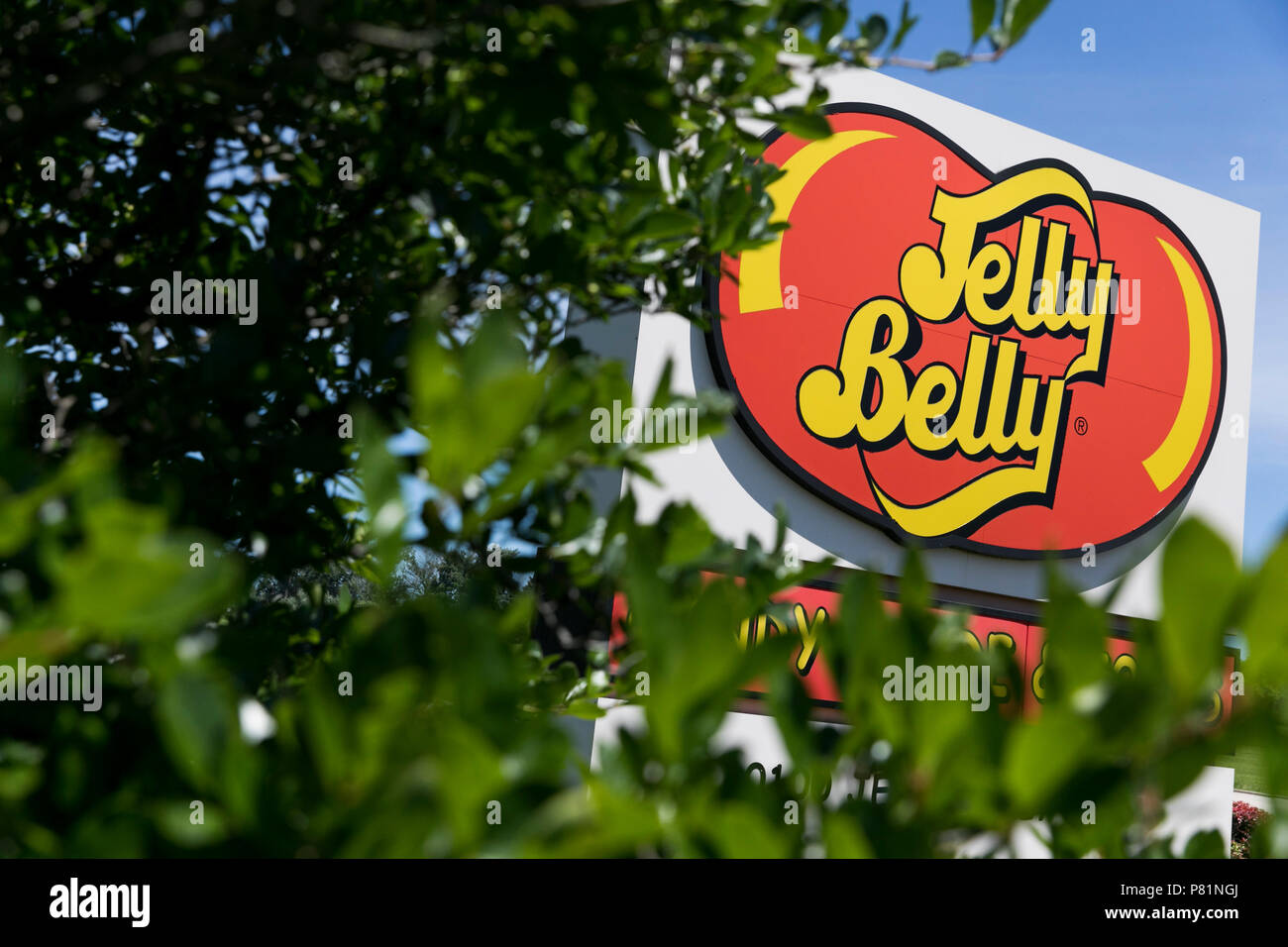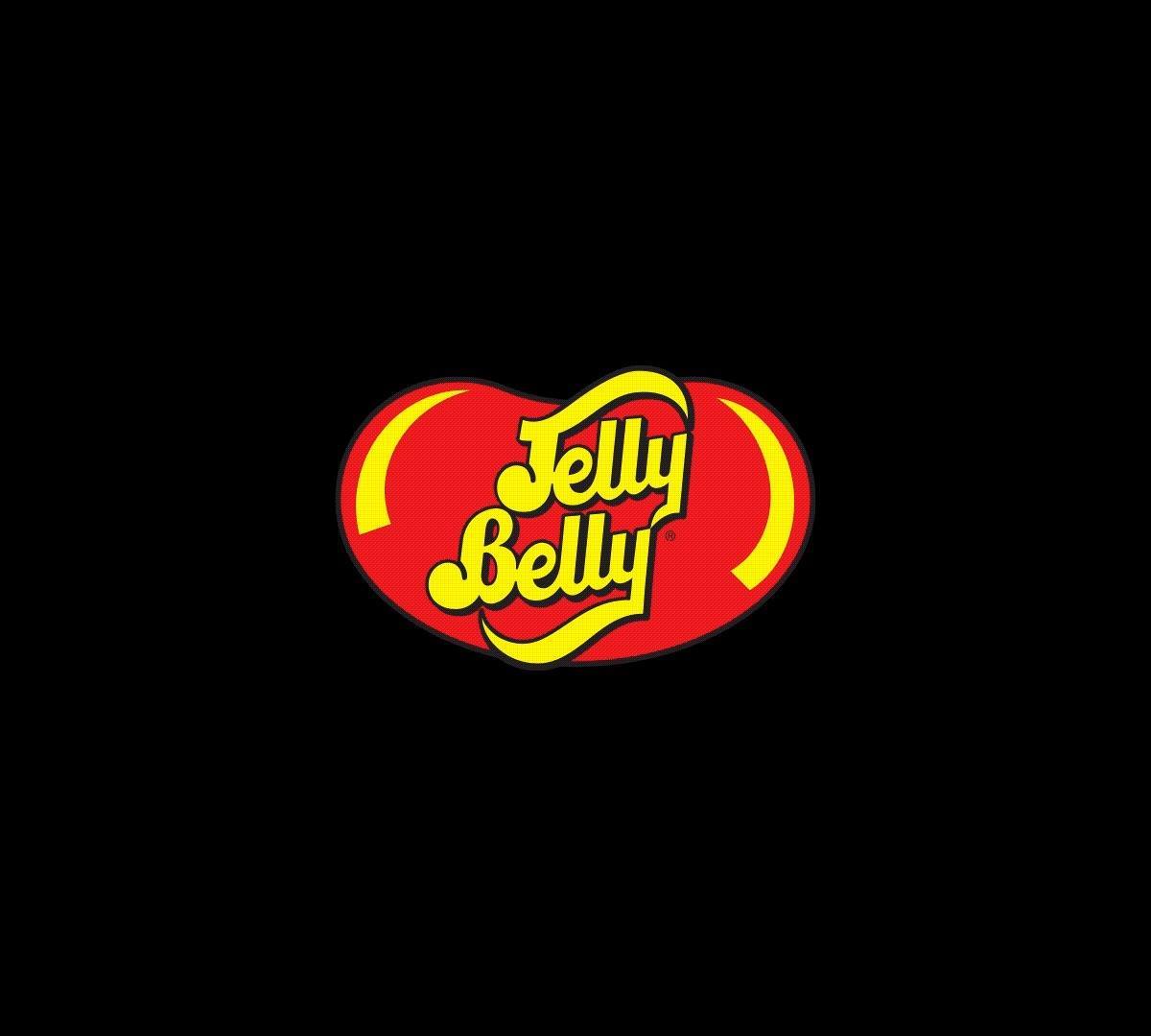
Jelly belly logo font. Each letters comes with shining highlights reminds me of the long balloons that can be folded into different shapes including letters. Jelly Bean Queen svg dxf png eps Files for Cutting Machines Cameo Cricut Easter Egg Hunt Cute Bunny Funny Hip Hopster GlitterMoonshineSVG. Jelly Belly is a rounded blubbly font free for download.
Jelly belly is a jiggly wiggly and fabulous new font from salt and pepper designs. JellyBelly is a jiggly wiggly and fabulous new font from salt and pepper designs. Jelly belly is a jiggly wiggly and fabulous new font from Salt and Pepper designs.
The JellyBelly font contains 93 beautifully designed characters. Or change its colors and pair it with a blankwhite background to make it stand out. The shining effect can be left blank or filled with other colors too.
Jellybelly is a jiggly wiggly and fabulous font from salt and pepper designs. Jelly belly font Open Question hello reditors can any one help me find the name or a good close to the font on the JELLY BELLY logo thanks hereis a lonk to a photo if you dont know what i am talking about. JellyBelly Font OTF.
Jelly belly is a jiggly wiggly and fabulous new font from salt and pepper designs. The Free Jelly Belly Font is as versatile as it is pretty. Do what makes you happy.